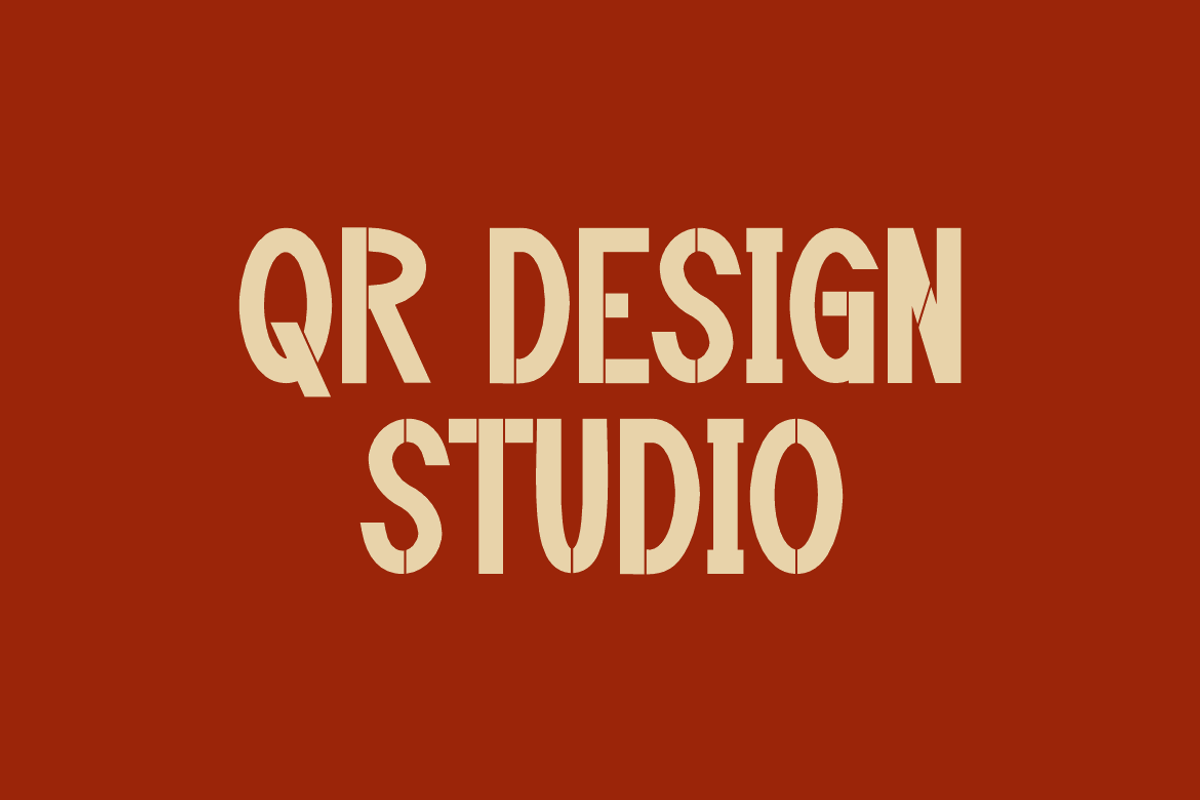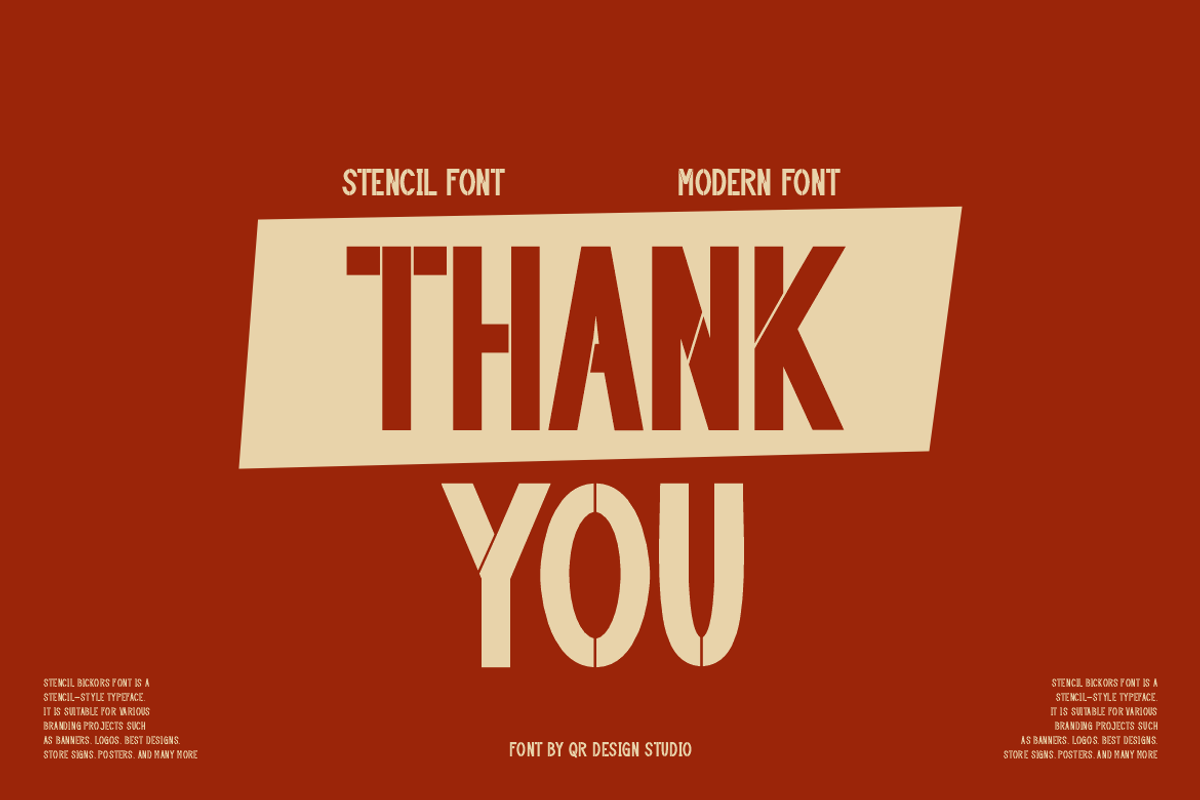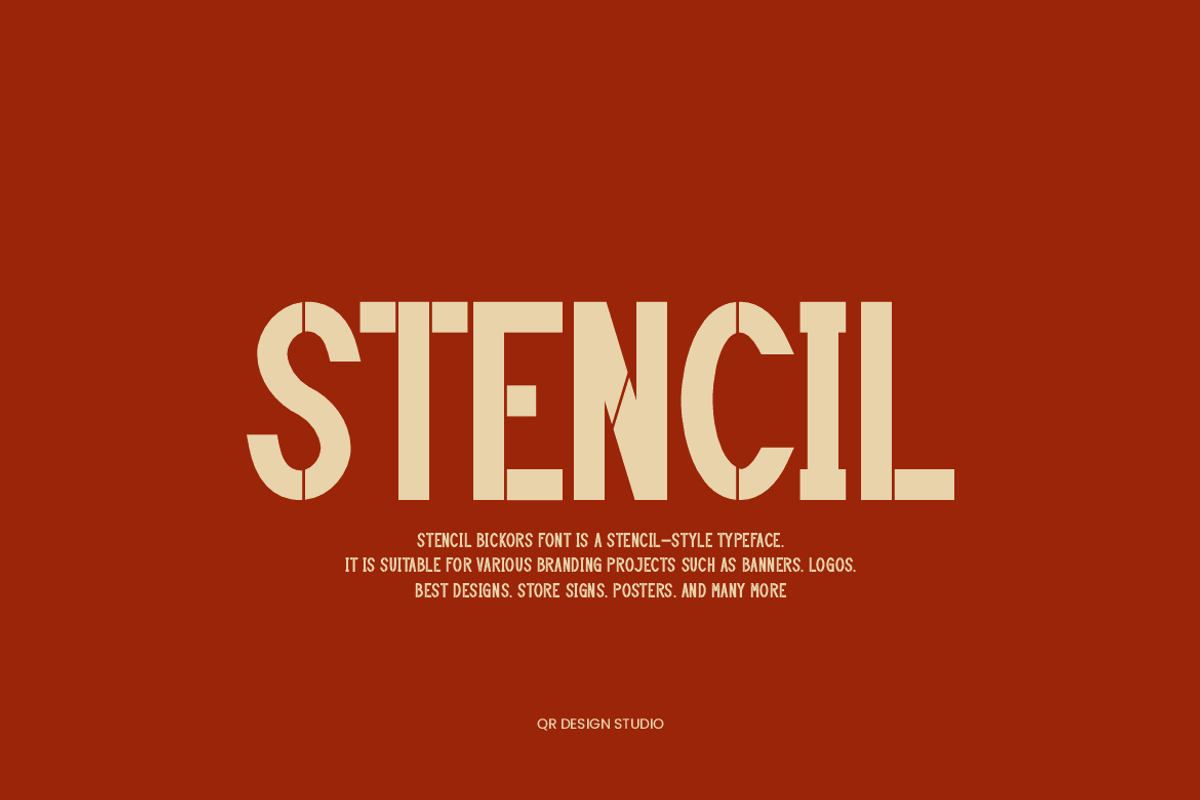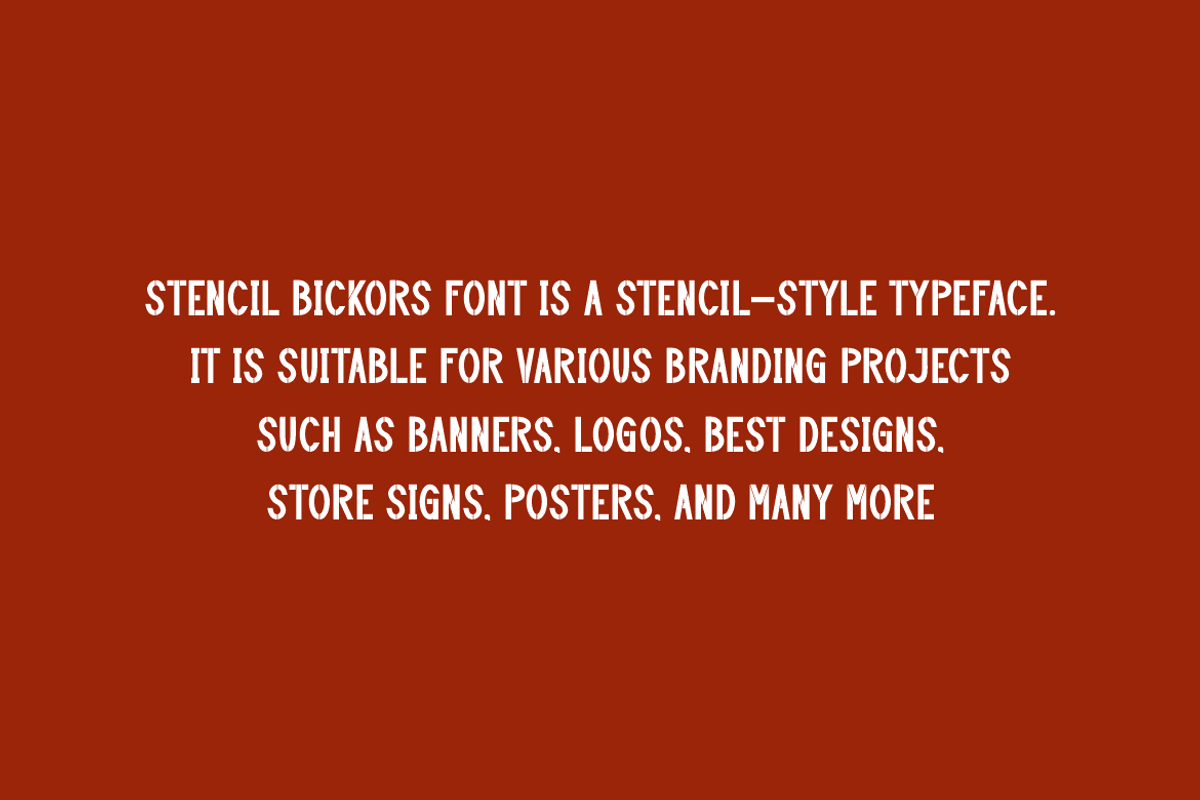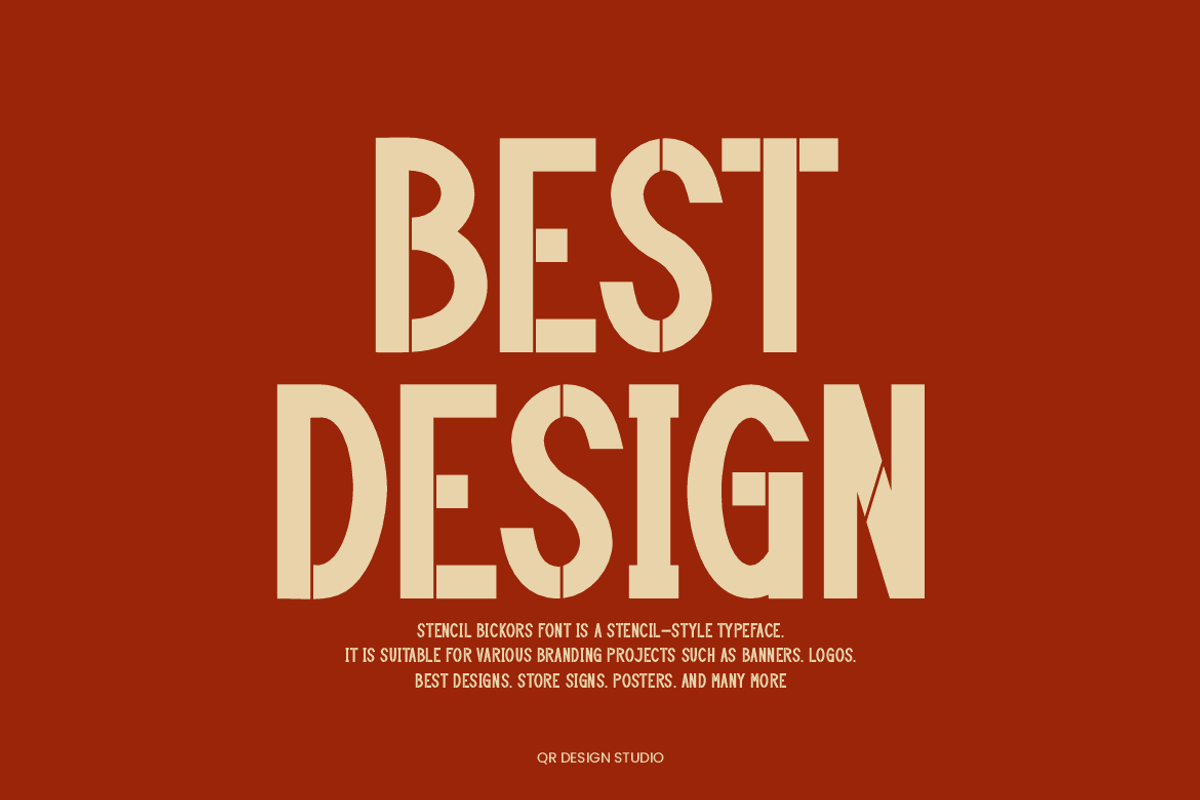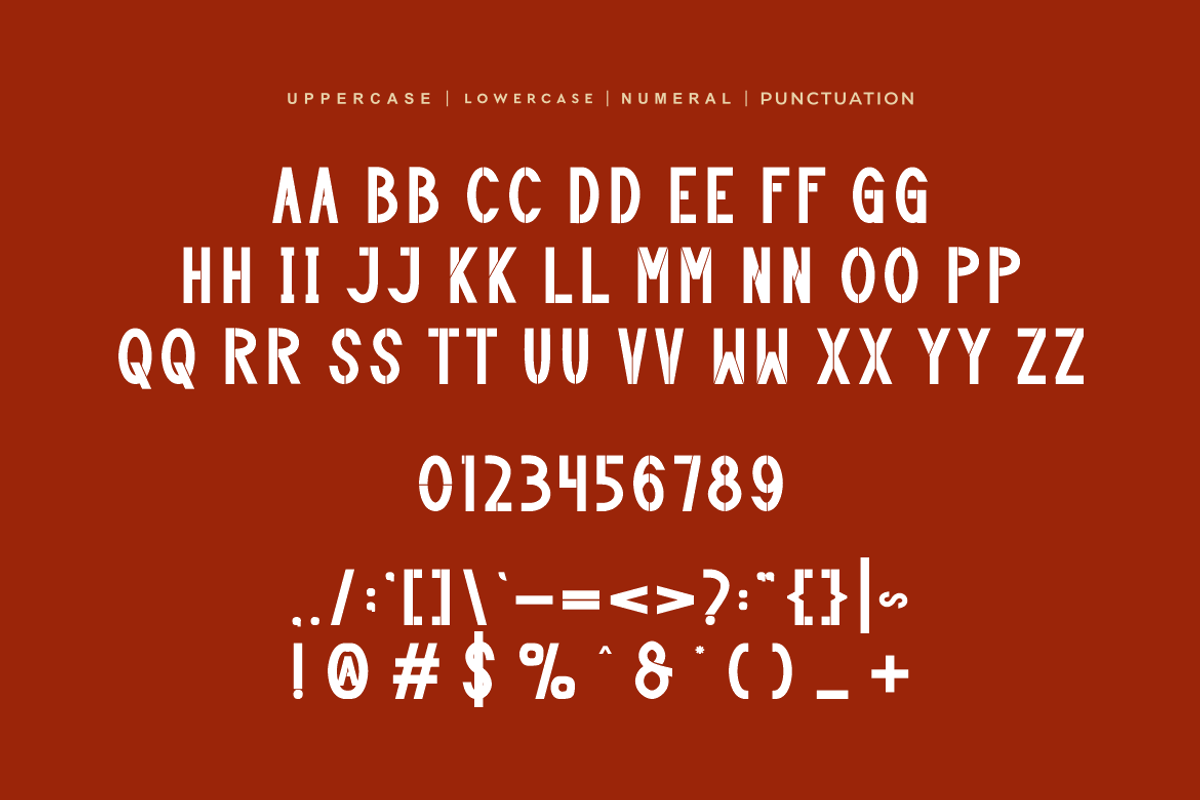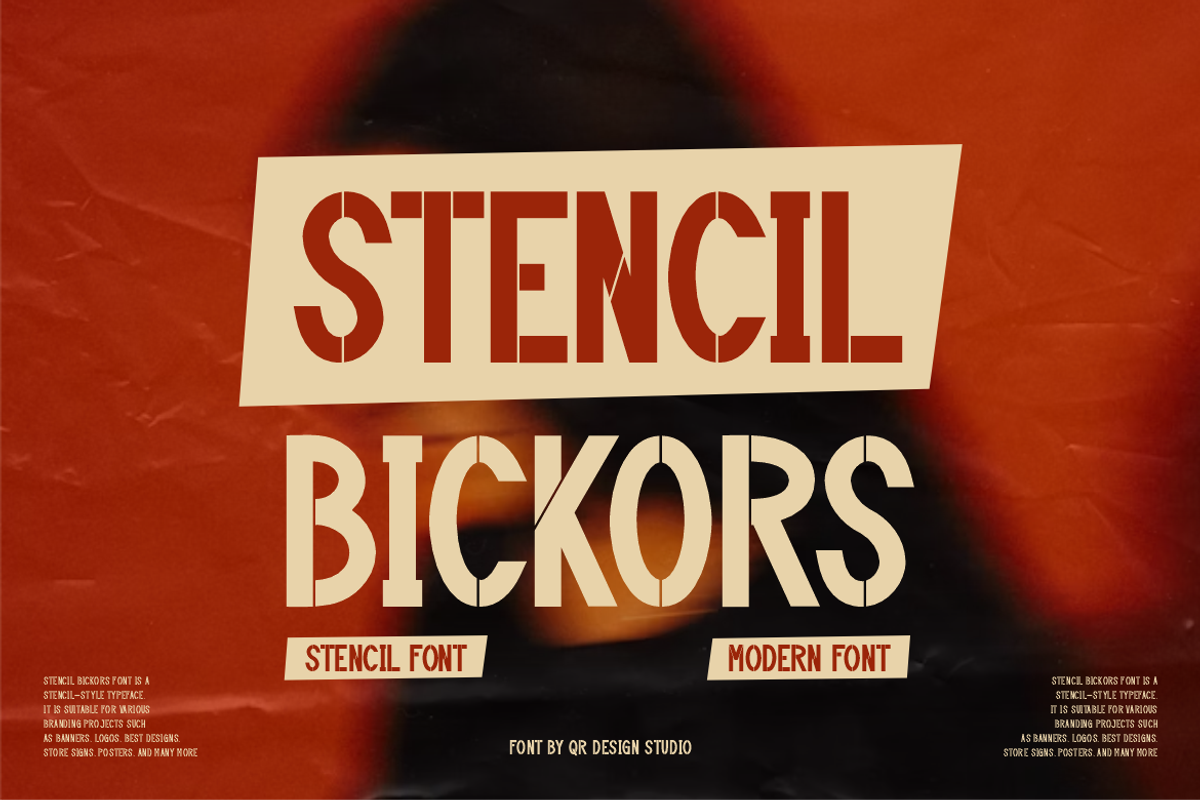
Stencil Bickors Font
Stencil Bickors Font is a stencil and authentic display typeface. It’s perfect for various branding projects such as logos, sports designs, and more. This font stands out beautifully in a wide range of contexts.